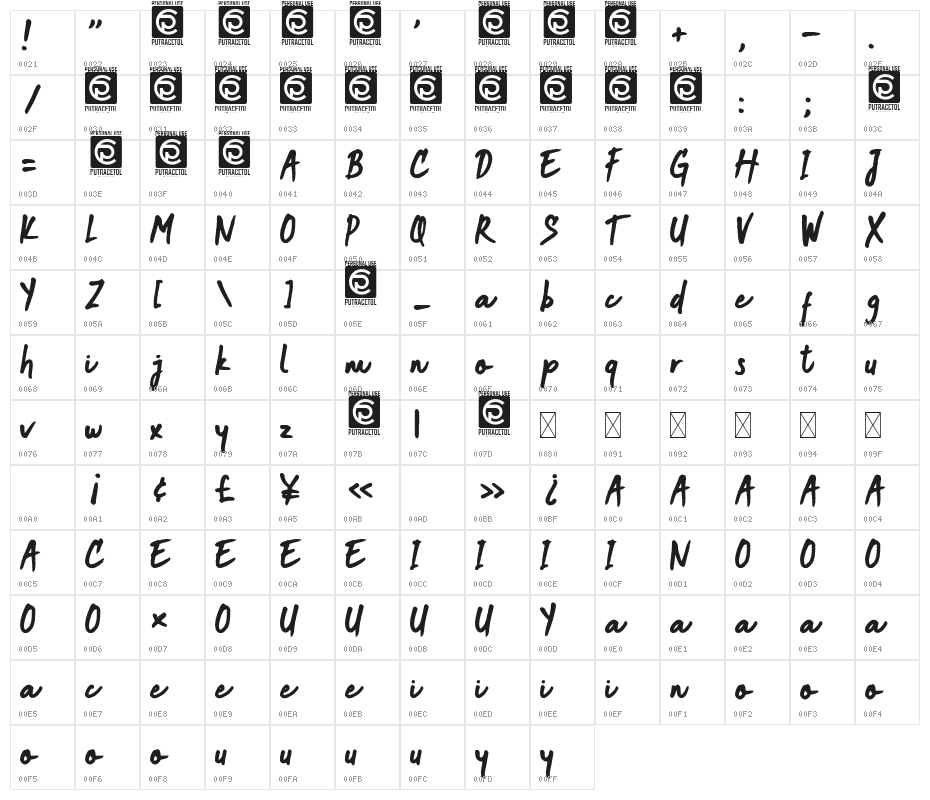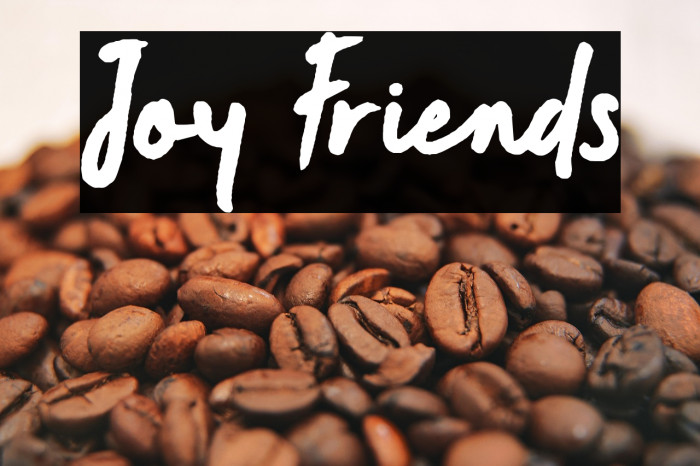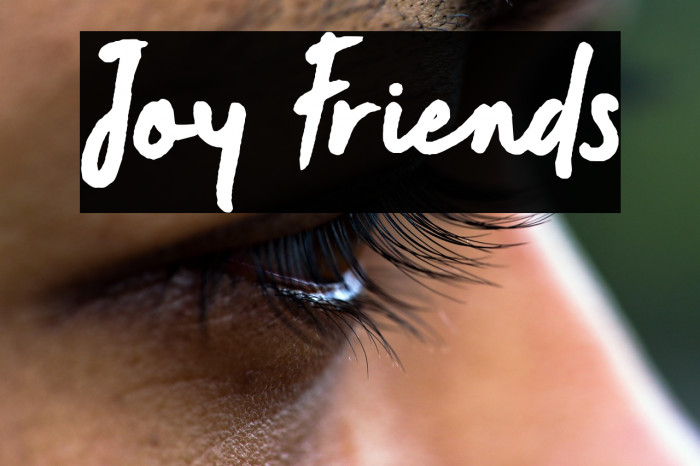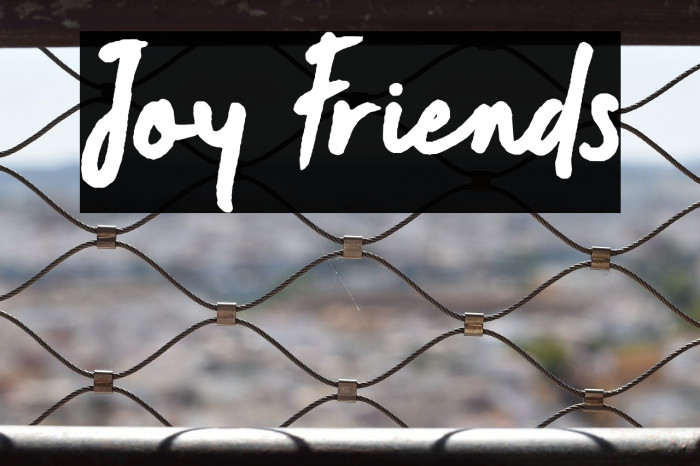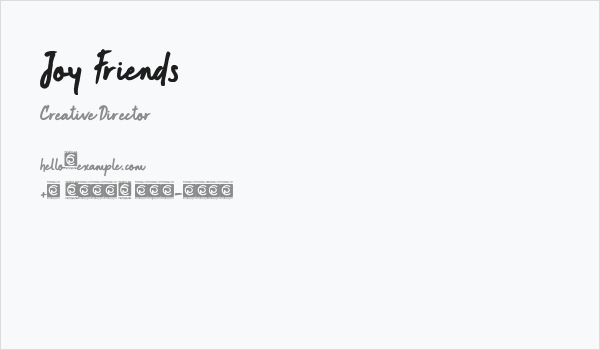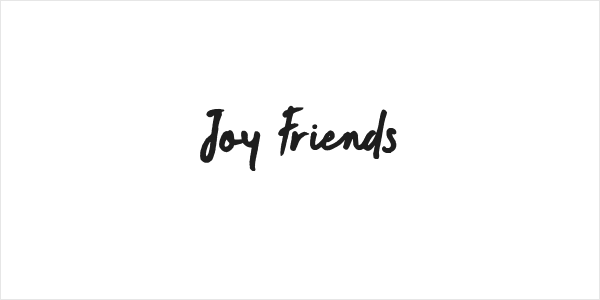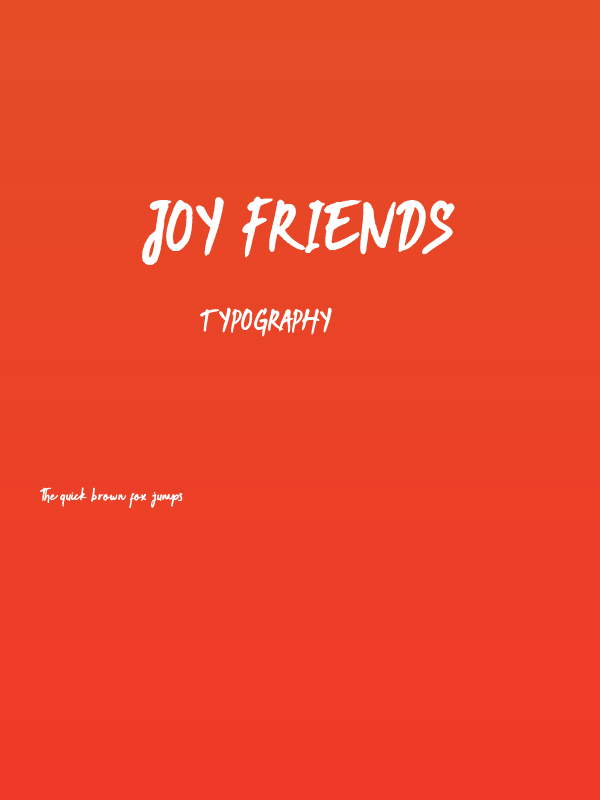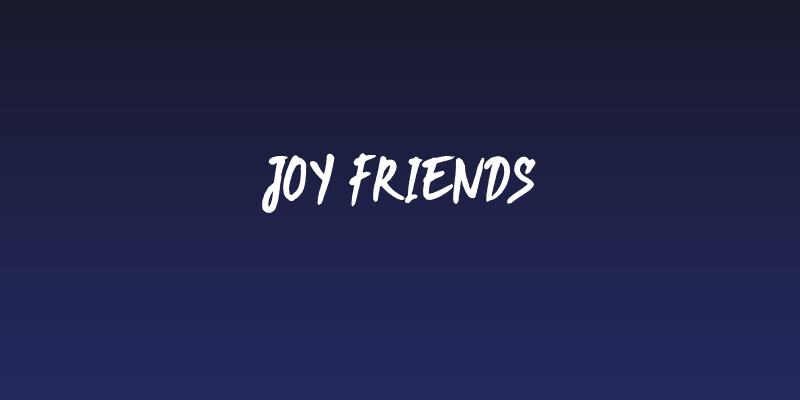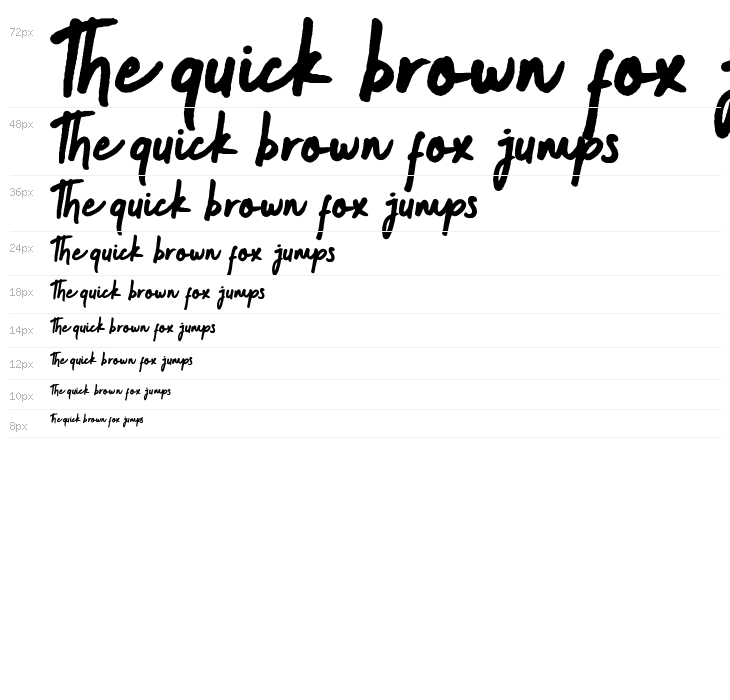
Joy Friends Font
Joy Friends Description
This font features a bold, handwritten style with a playful and energetic appearance. The uppercase letters are slightly slanted and have a rough, textured edge, giving them a casual and informal look. The lowercase letters maintain the same playful style, with some characters having unique, exaggerated forms that add to the font's charm. The numbers and special characters follow the same design principles, ensuring consistency throughout. This font exudes a sense of fun and creativity, making it ideal for projects that require a personal touch.
| Overall Style | Playful, Energetic |
| Use Case | Headlines, Logos, Informal Invitations |
| Proposed Projects | Ideal for greeting cards, children's book covers, playful branding, and social media graphics. |